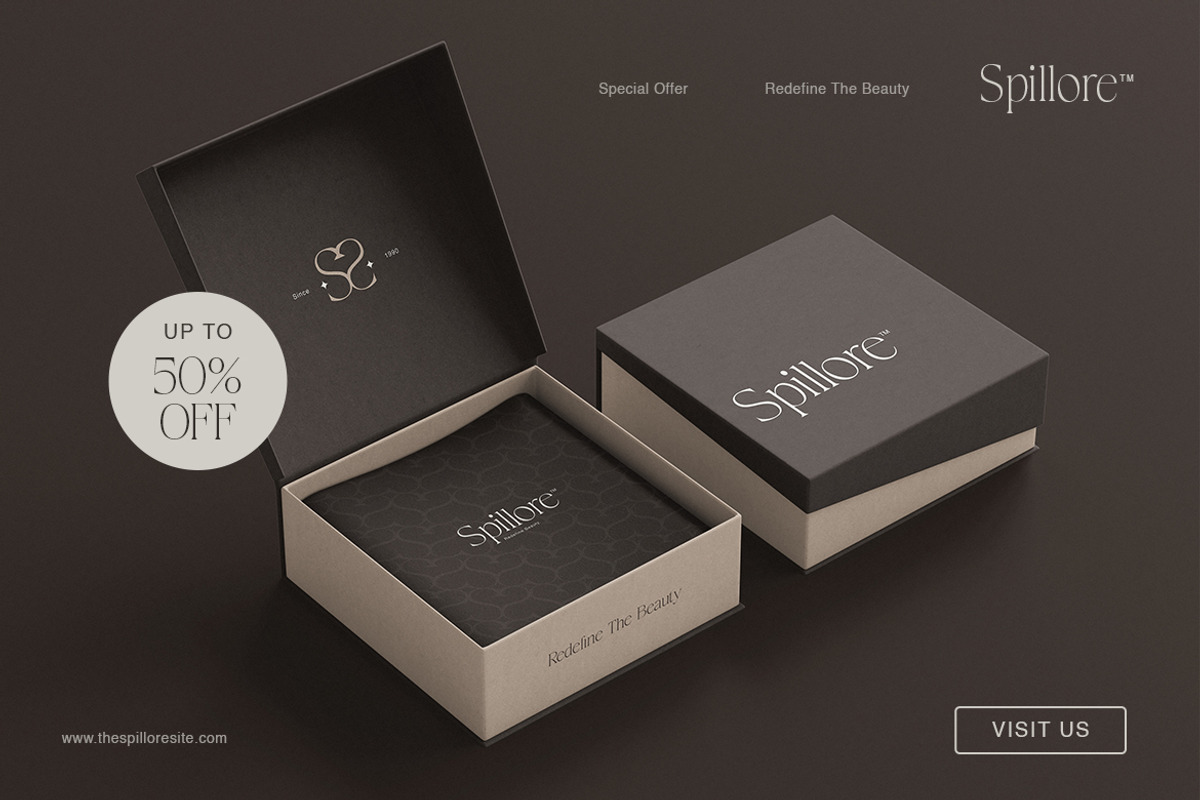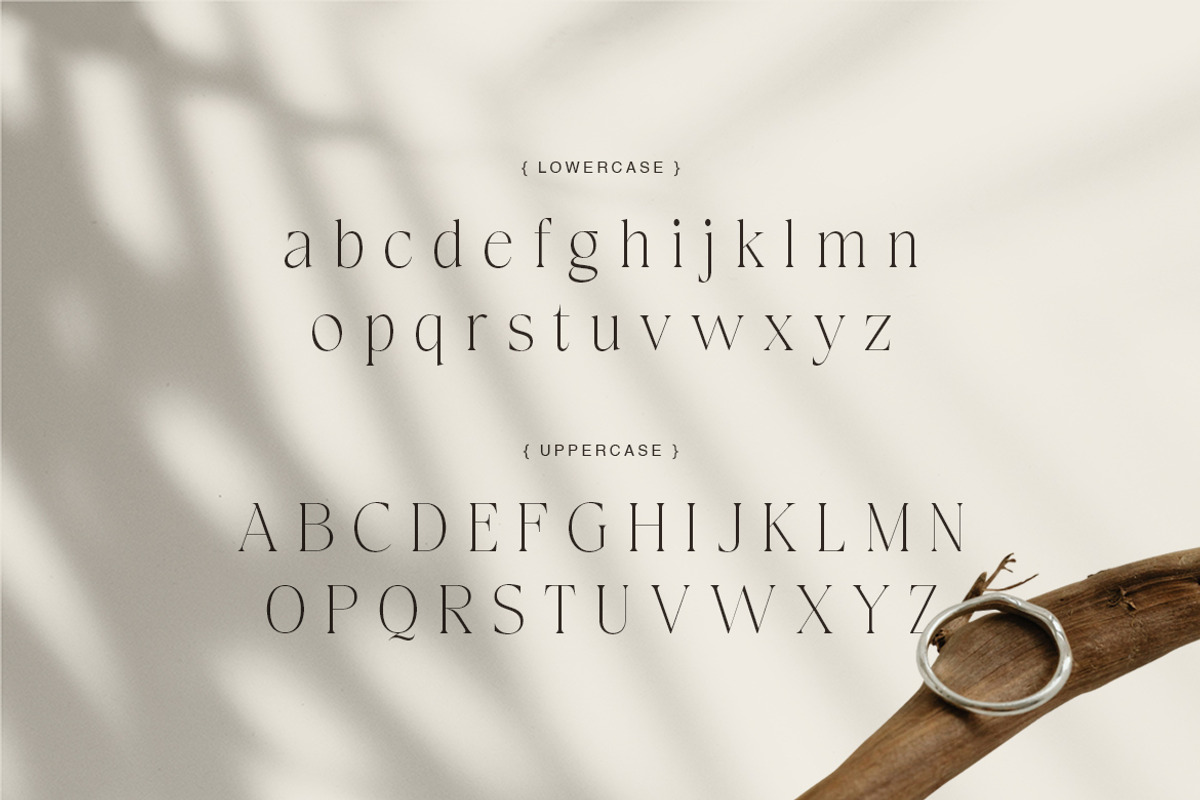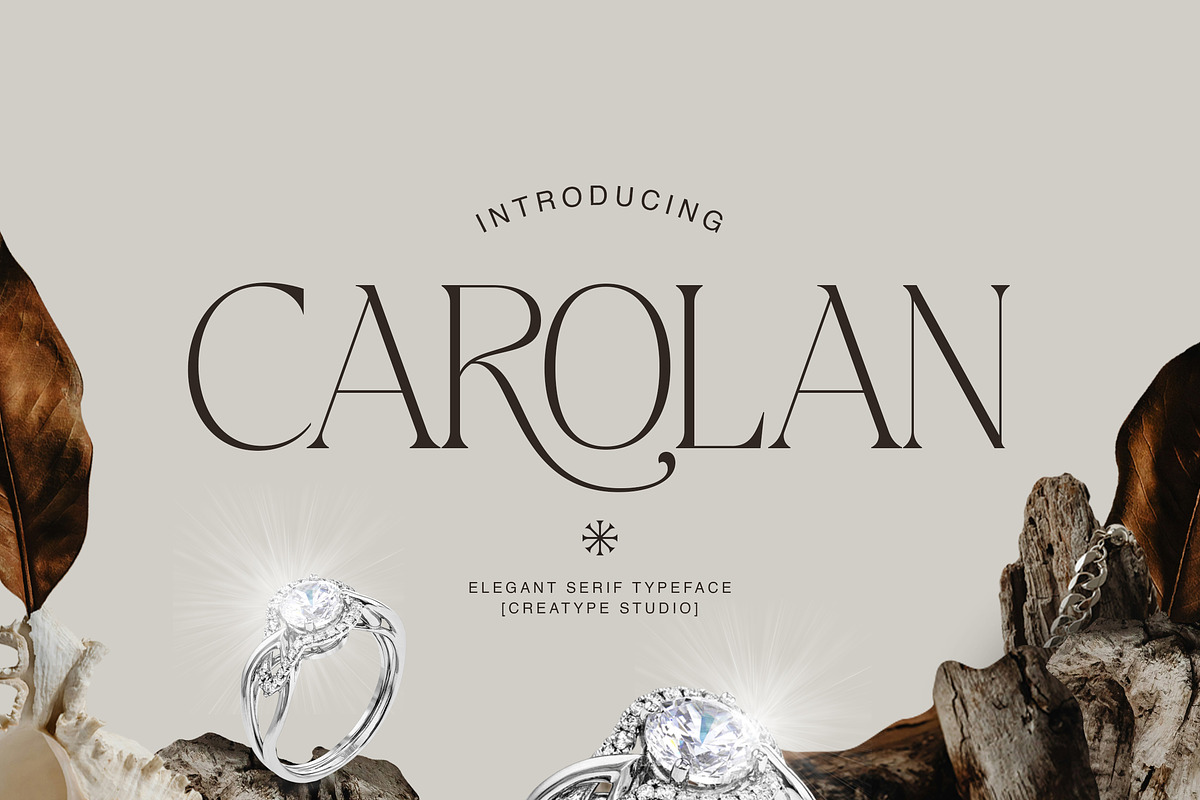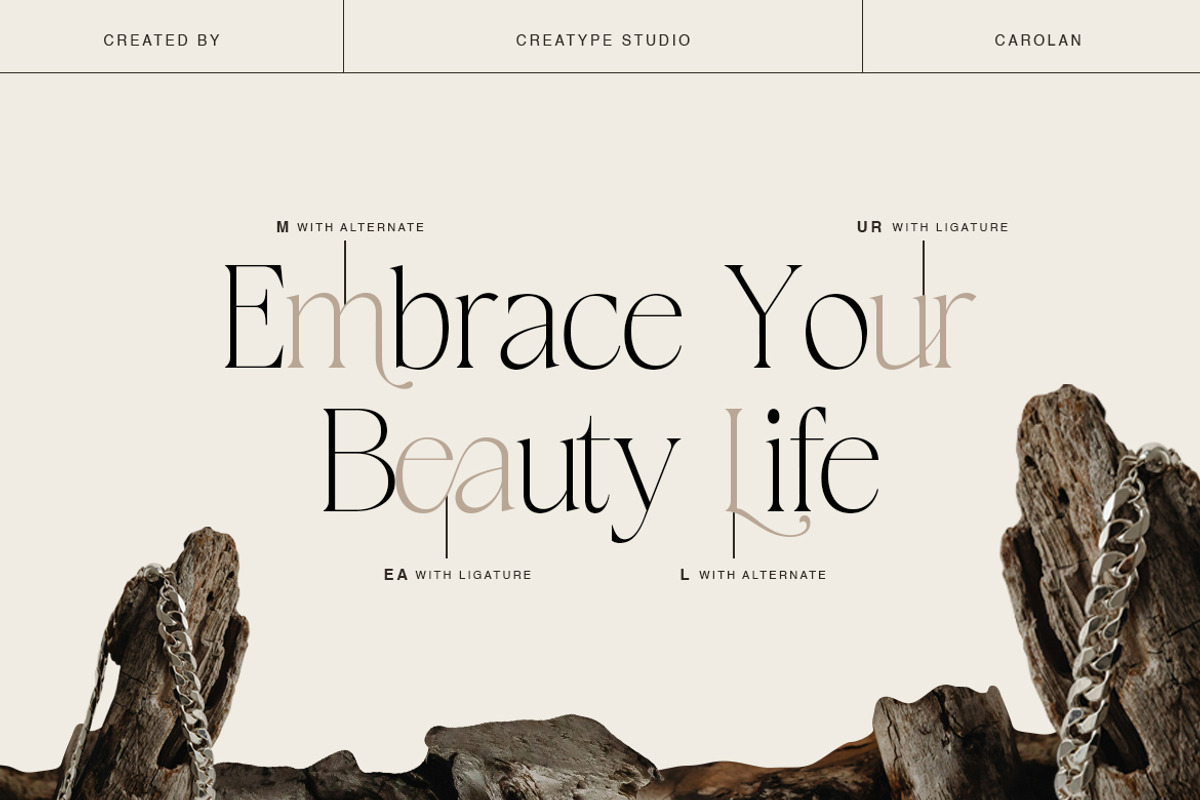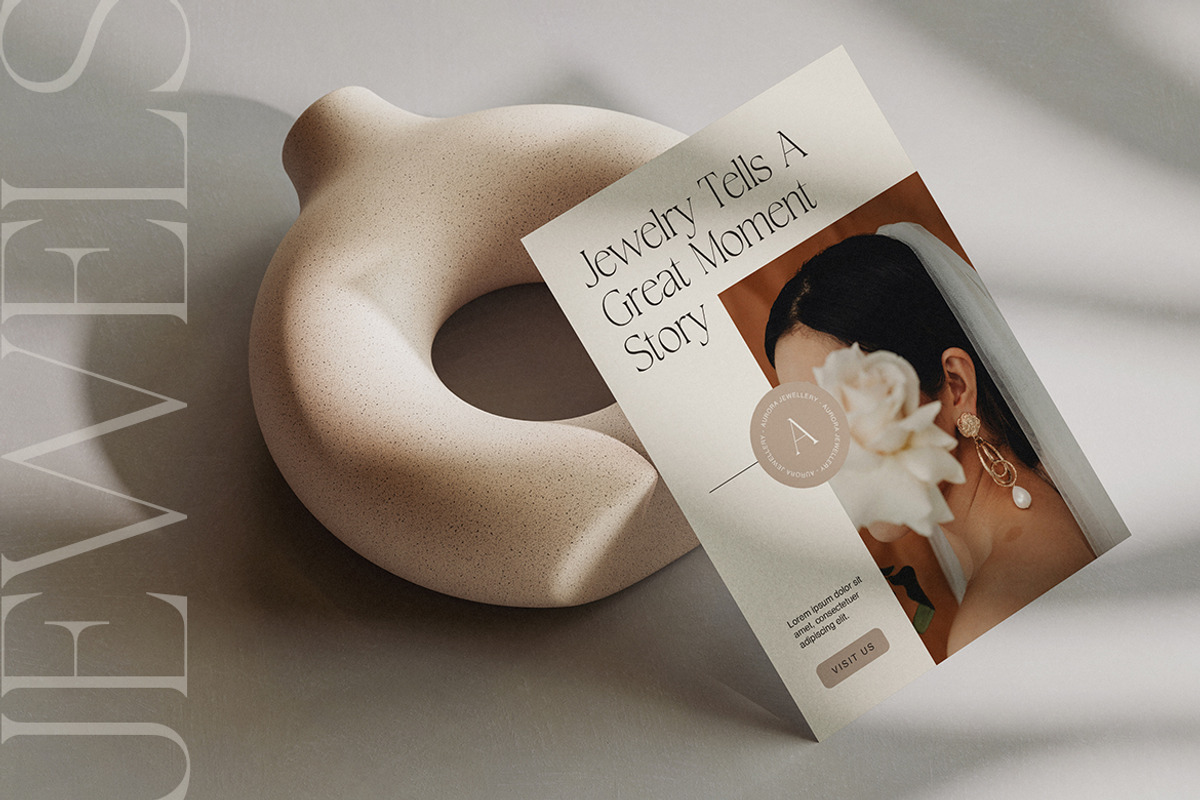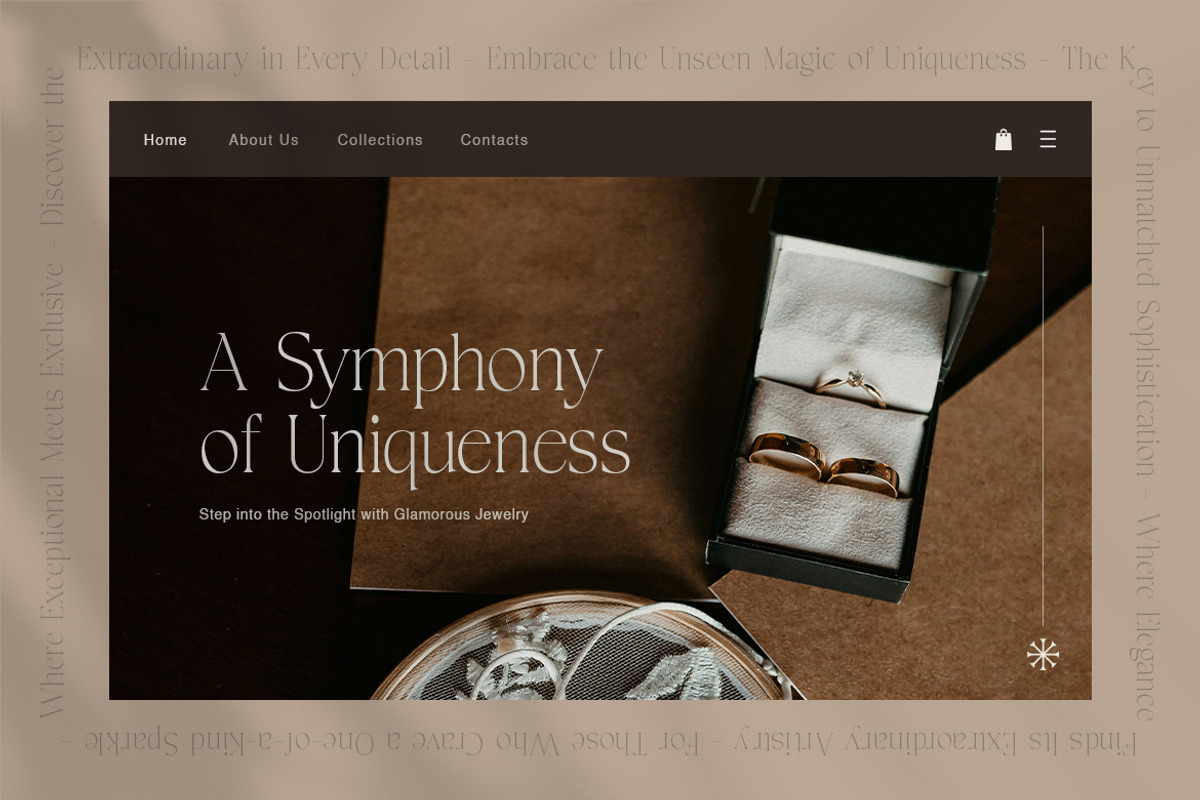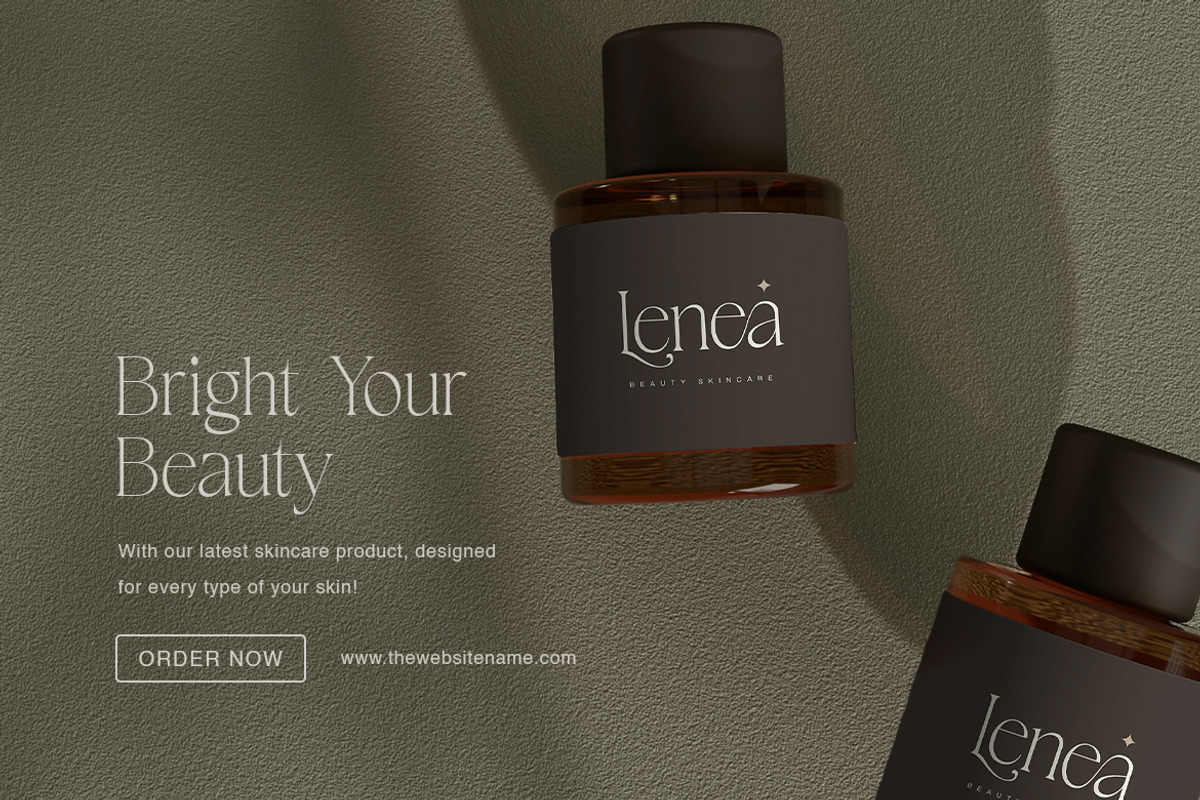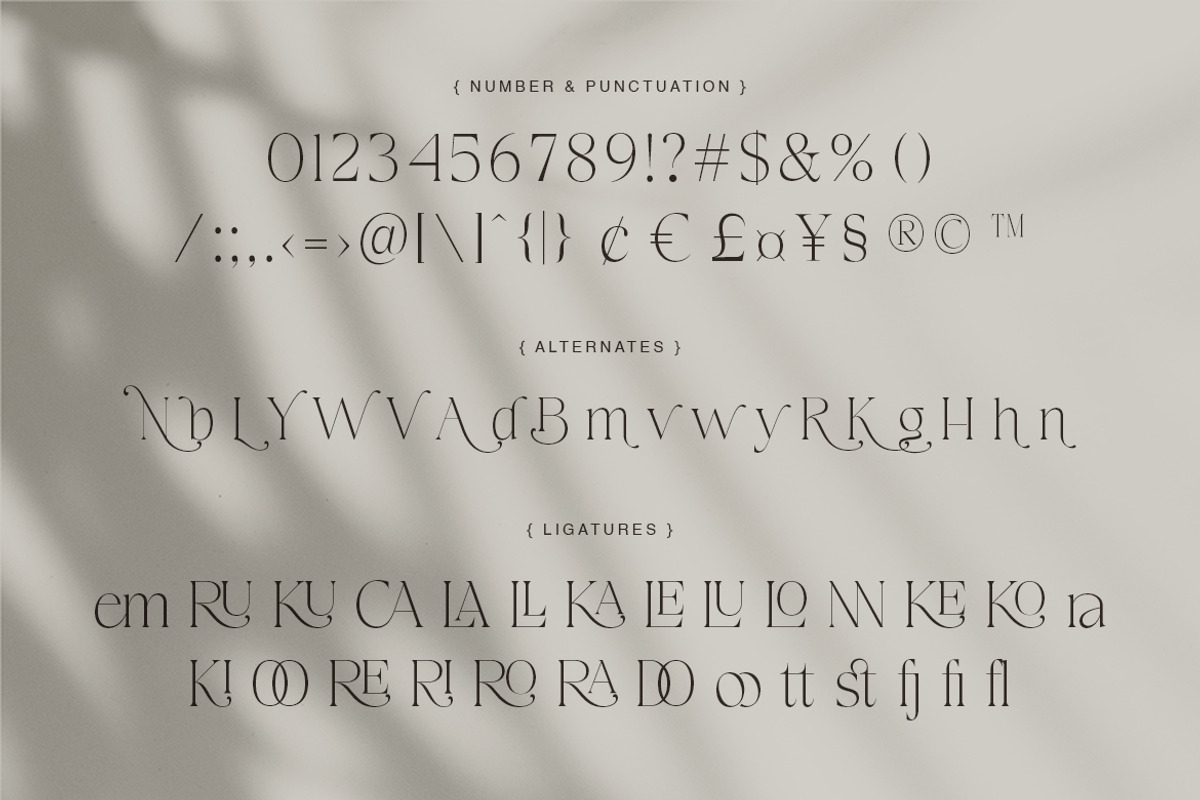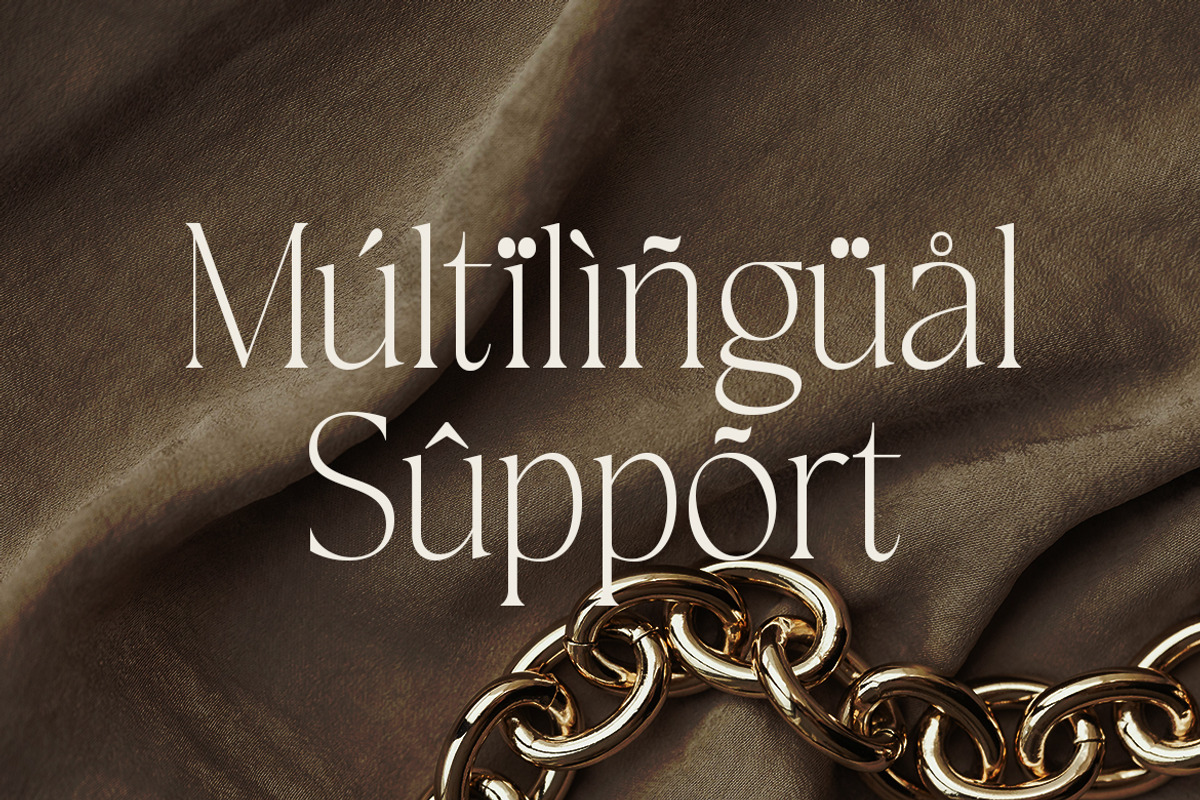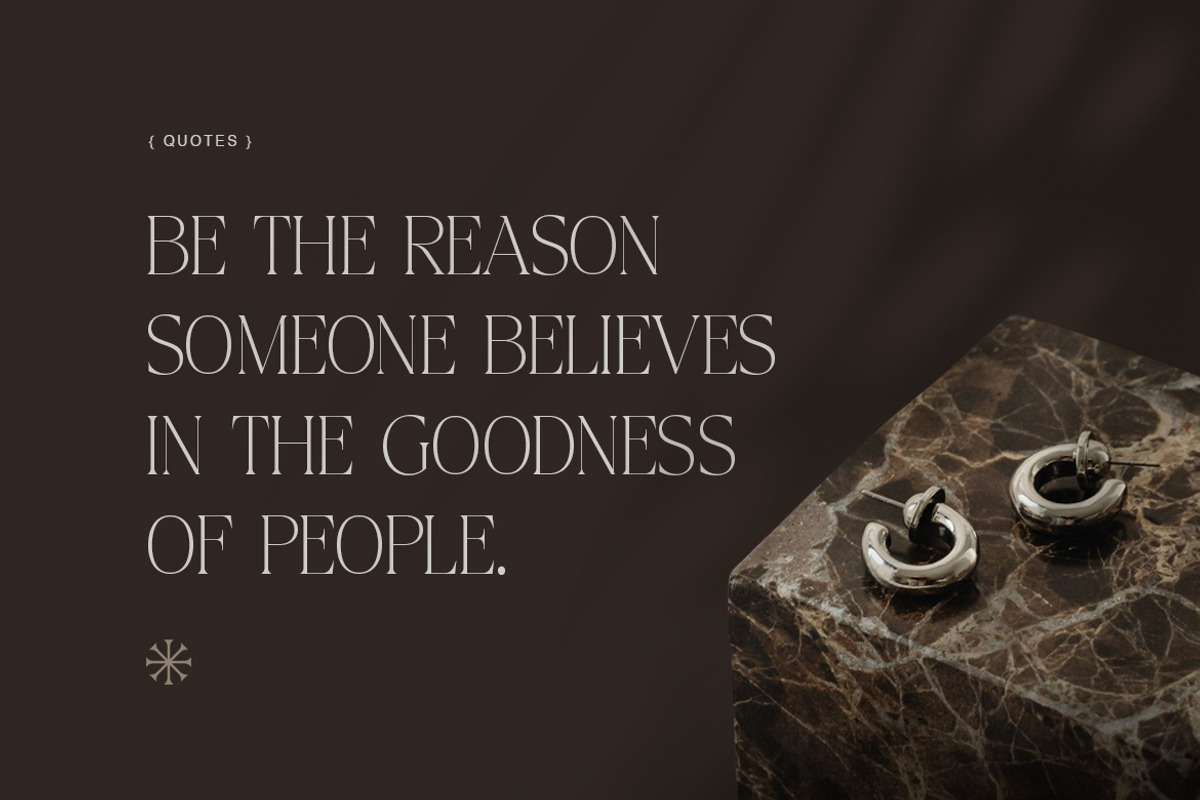
Carolan Elegant Display Serif
Introducing Carolan — an elegant display serif with couture poise and a whisper of classic romance. Its high-contrast strokes, crisp wedge serifs, and graceful swashes (spot that sweeping R/O curve) bring the “luxury editorial” vibe to any layout without trying too hard.
- Ligature & Alternate